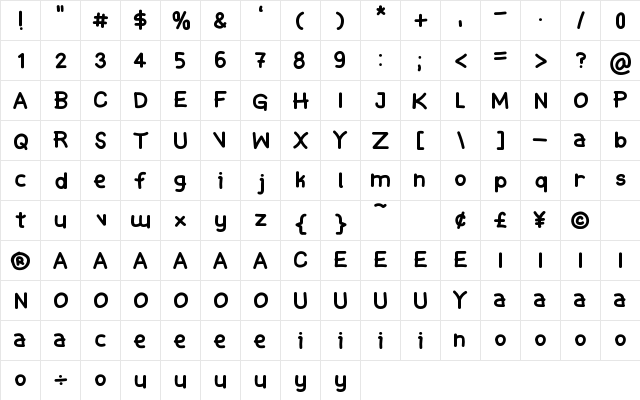
Kaylafiz Regular
Design Context for Kaylafiz Typeface
Kaylafiz is a composed and adaptable typeface that performs quietly and consistently across a wide range of design contexts.